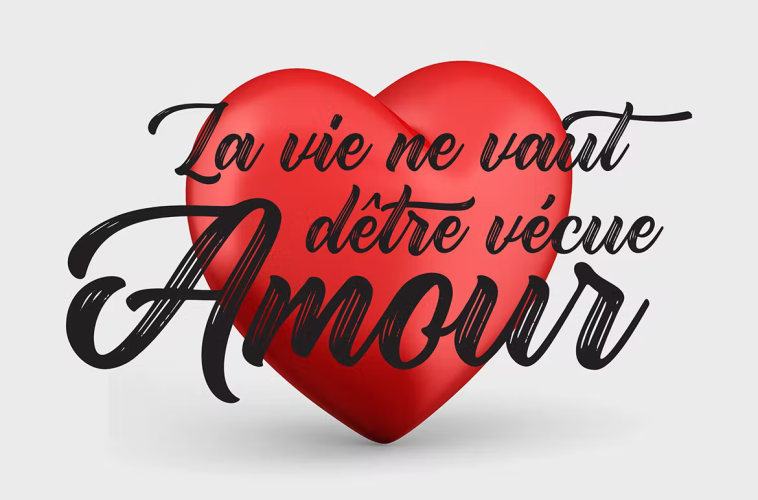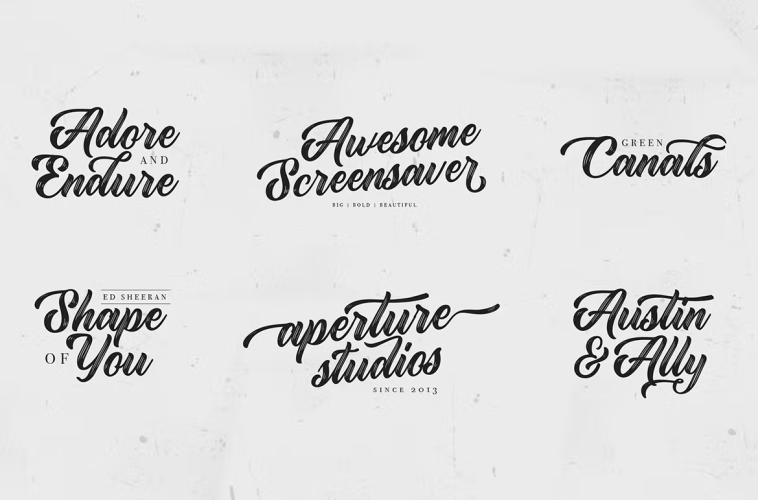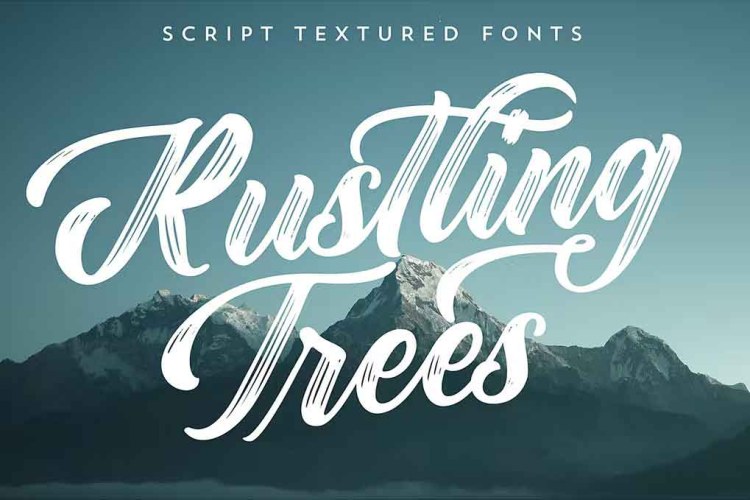
Rustling Trees Font
Rustling Trees – Script Textured Fonts — Brand new stylish textured fonts. Fresh from the oven as inspired to create easy digital lettering for you.
Flowing texture makes this fonts has a unique characteristic, also give you alternate characters lowercase and uppercase, alternate for the initial and terminal forms. It will be great for Logotypes, Posters, Digital Lettering Arts, Clean design, Branding Design, Sign, etc.
Where Rustling Trees Font works best
A short phrase in Rustling Trees Font carries warmth that a typeset sans cannot fake; keep the rest of the card plain.
Chalkboard-style headings in Rustling Trees Font make a menu feel hand-made. Keep the dish descriptions in a simple face so prices stay readable.
One line of Rustling Trees Font over a photo is enough; the script carries the tone and the caption does the work.
What kind of work does Rustling Trees Font suit?
It sits in the Script And Handwritten group and reads as branding, clean, script, script and handwritten. That makes it a candidate wherever those qualities help: headings, packaging, social graphics and brand work. Set it at the size you plan to use before deciding.